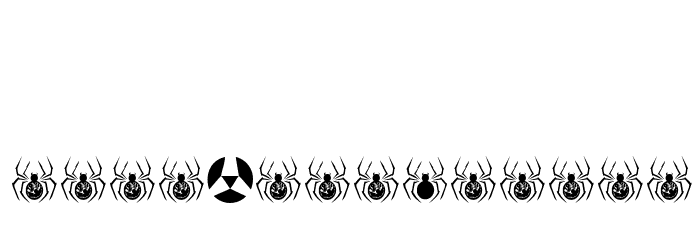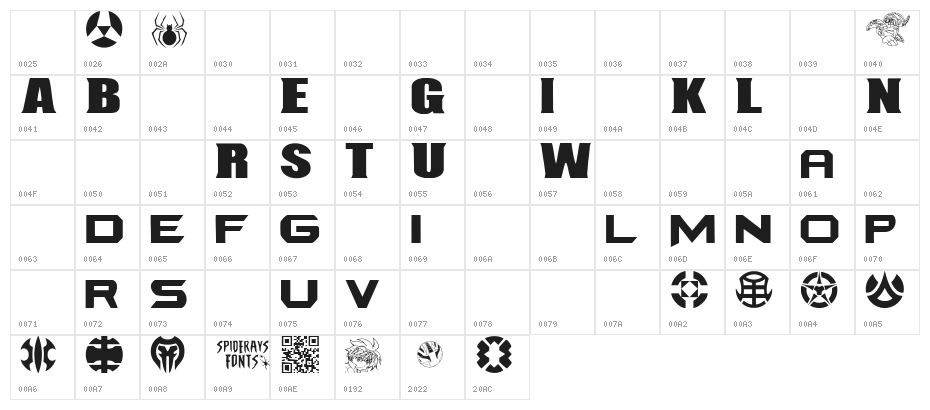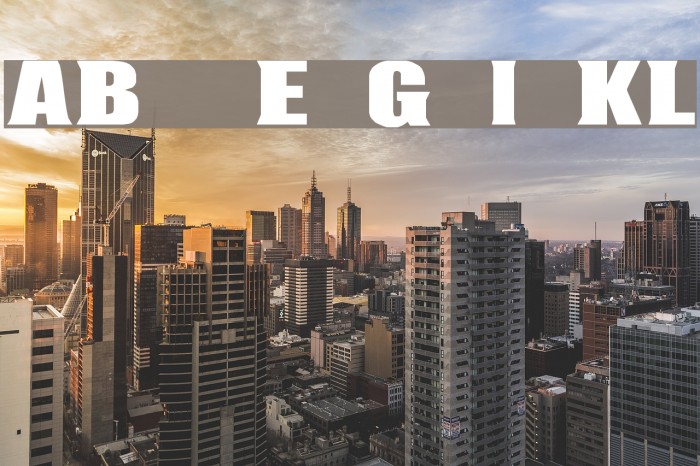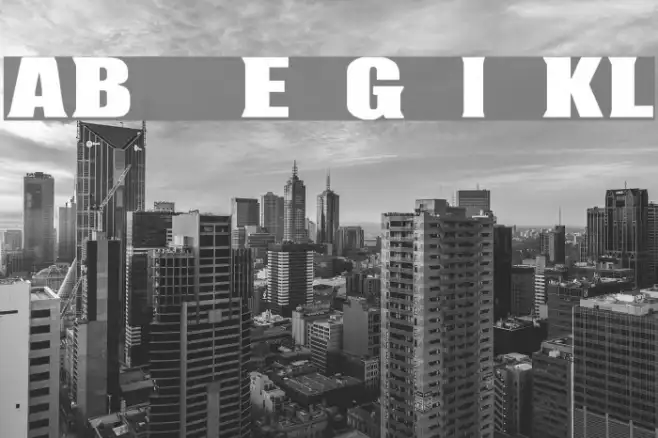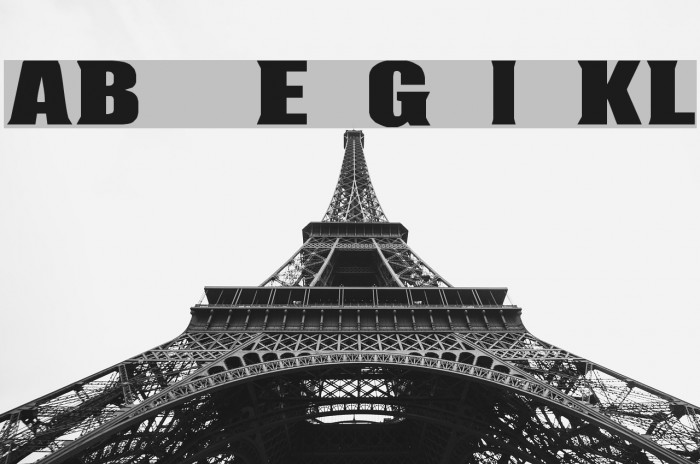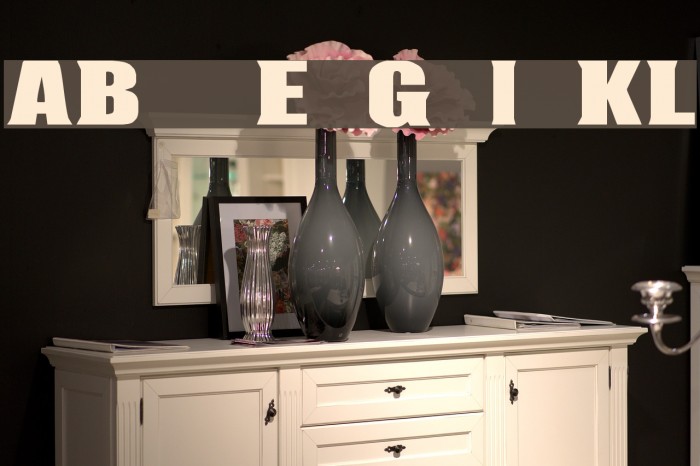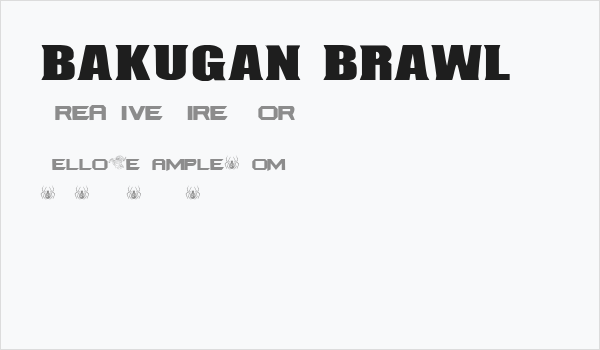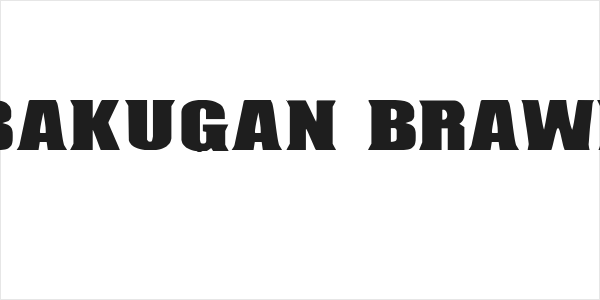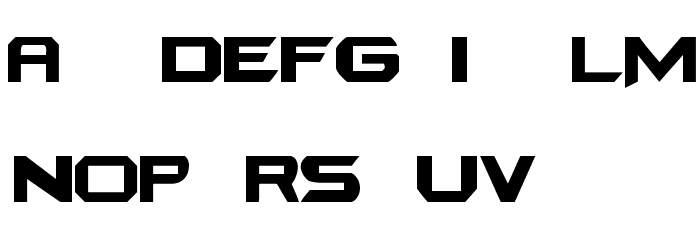
BAKUGAN BRAWL Font
BAKUGAN BRAWL Description
This font features a bold and dynamic style with a strong presence, characterized by thick, angular strokes and a futuristic aesthetic. The uppercase letters are particularly striking, with sharp edges and a blocky form that conveys strength and modernity. The lowercase letters maintain a consistent style, offering a cohesive look across different text sizes. The numerals are equally bold, ensuring readability and impact. Special characters are designed with the same attention to detail, making them suitable for various design contexts. Overall, this font is ideal for projects that require a powerful and contemporary visual impact.